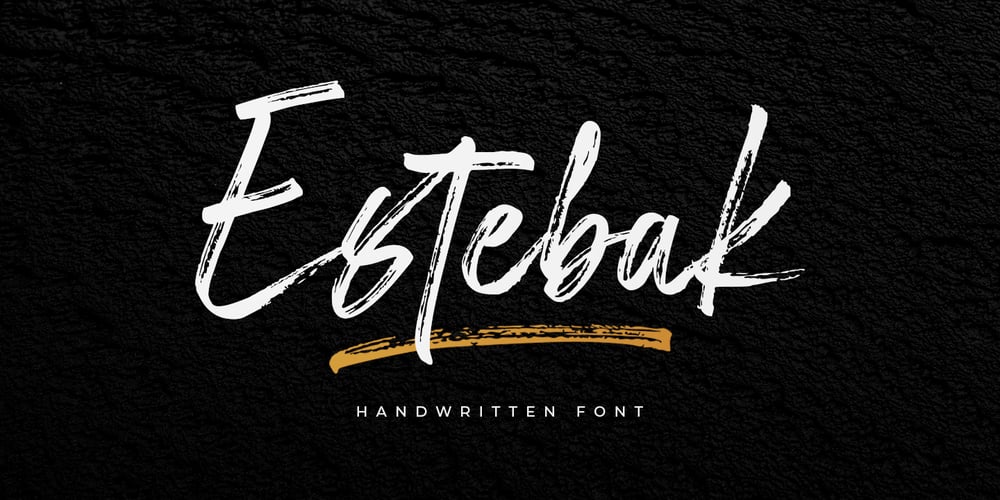
Estebak
Estebak font
Estebak Font Family was designed by M Akmal and published by Mega Type. Estebak contains 2 styles and family package options. Estebak is a textured brush font, a contemporary approach to design, looking natural thanks to an irregular baseline. Suitable for use in title design such as invitations, books tittles, apparel, stationery design, quotes, branding, logos, greeting cards, t-shirts, packaging design, posters and more. Estebak includes a complete set of uppercase and lowercase letters, as well as multi-language support, numbers, punctuation, ligatures. If you need help or have any questions, please let me know. I’m happy to help. Thanks & Happy Designing!